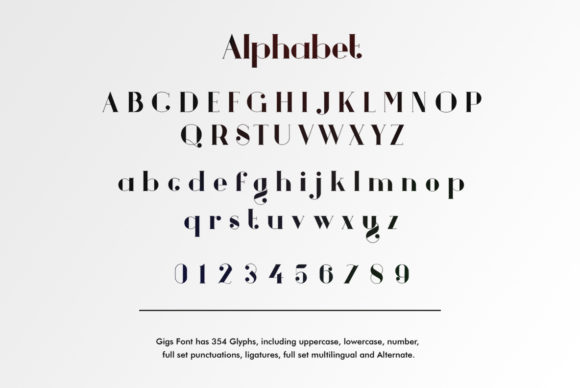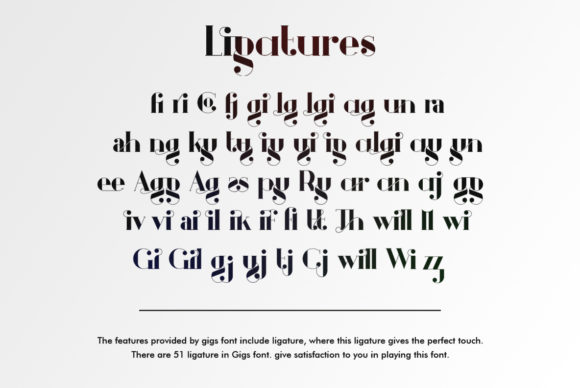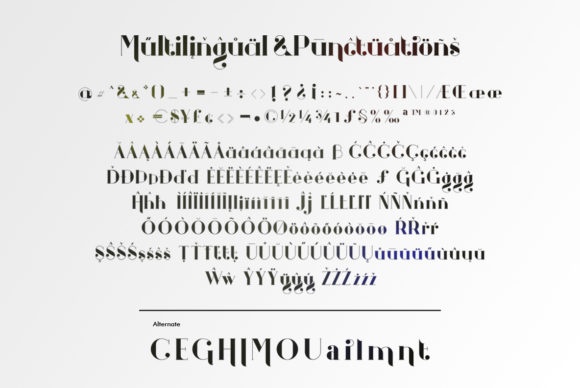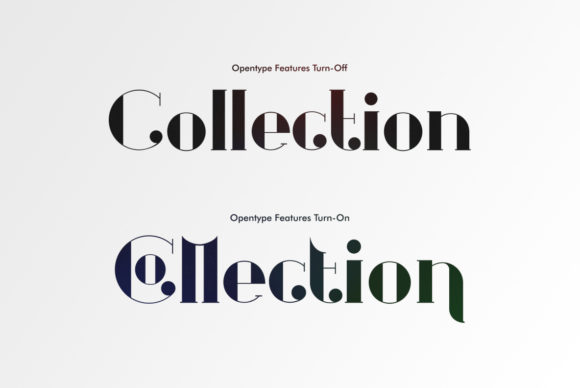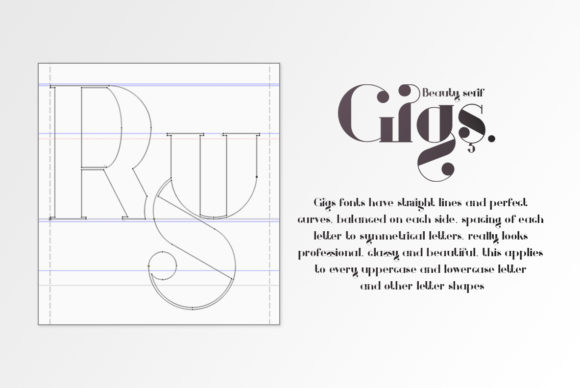
The Designer’s Dream Come True: Gigs Font
I’ll never forget the time I was working on a project for a client who wanted a bold, eye-catching design that would make their brand stand out. I spent hours scouring the internet for the perfect font, but nothing seemed quite right. That was until I stumbled upon Gigs Font. This extraordinary display font has been a game-changer for my design projects, and I’m excited to share its awesomeness with you! 😊
An Honest Review of Gigs Font
- 💥 **Impactful and attention-grabbing**: Gigs Font is perfect for making a statement with your design.
- 🎨 **Versatile**: It can be used for a wide range of projects, from posters and flyers to social media graphics and logos.
- 👍 **Easy to read**: Despite its bold and edgy look, Gigs Font is surprisingly easy to read, even in smaller sizes.
- ✅ **High-quality**: The font is well-designed and well-spaced, making it perfect for professional designs.
- ⚠️ **Limited use in body text**: While Gigs Font is amazing for headlines and titles, it’s not the best choice for body text due to its bold and attention-grabbing nature.
- 🤔 **Some characters may require adjustment**: Depending on the context, some characters may need to be adjusted for optimal spacing and readability.
The Backstory of Gigs Font
Gigs Font was designed with the goal of creating a bold and attention-grabbing display font that would make any design project stand out. The designer, inspired by the world of music and performance, aimed to create a font that would evoke the energy and excitement of a live gig. With its unique and edgy design, Gigs Font has become a favorite among designers and crafters.
| Author | I Do Not Sleep |
| What is Gigs Font best used for? | Gigs Font is best used for headlines, titles, and display text where you want to make a bold statement. |
| Is Gigs Font suitable for body text? | No, Gigs Font is not recommended for body text due to its bold and attention-grabbing nature. |
| Is Gigs Font available in different styles? | Yes, Gigs Font comes with various stylistic alternates and OpenType features that allow you to experiment with different styles. |